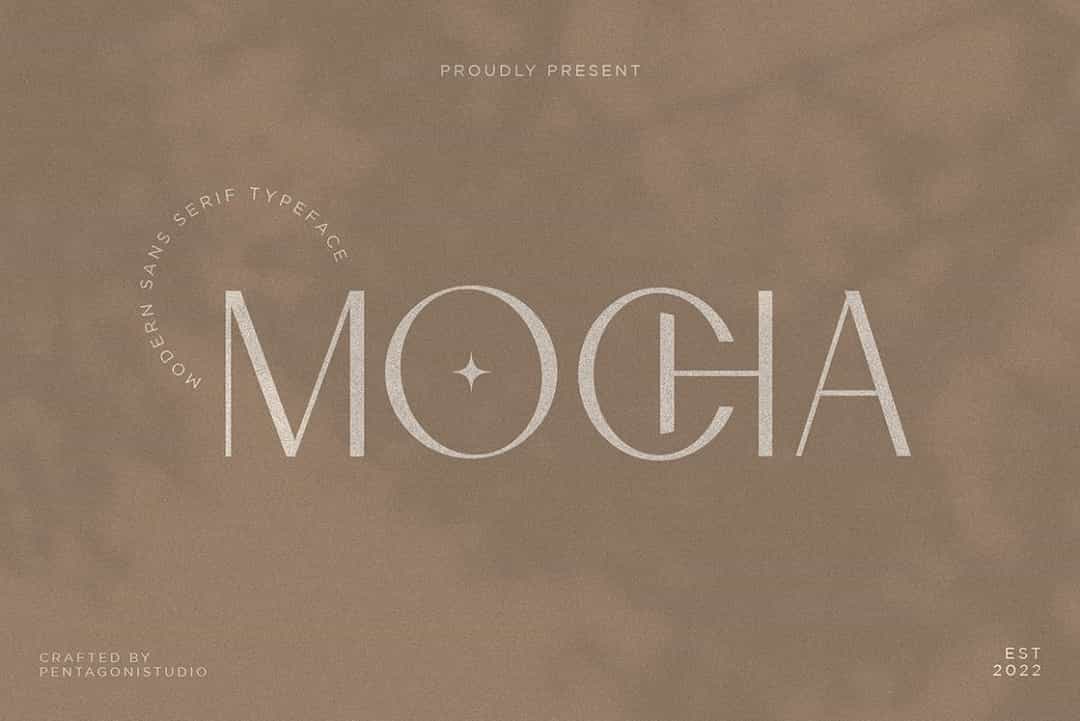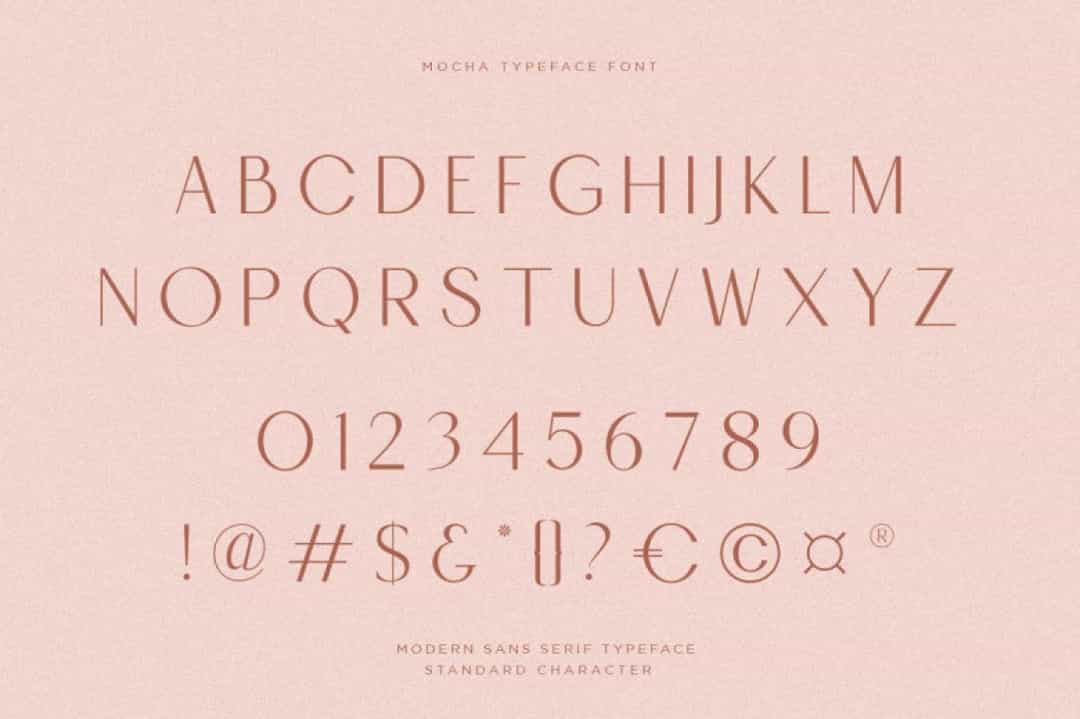
Mocha is a modern sans serif font inspired by vintage and chic style, perfect for use in magazine headlines, branding projects logo design projects, clothing & fashion branding as well as product packaging.